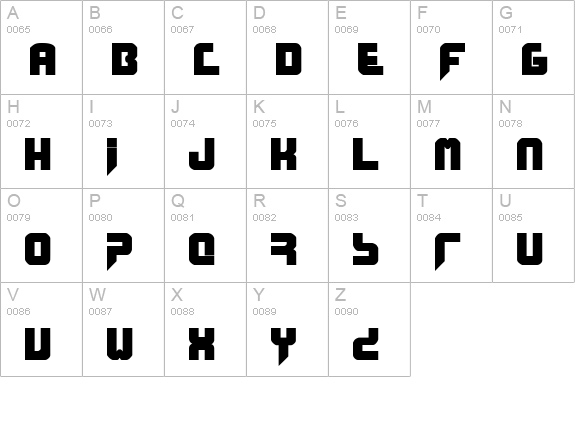
Phobos Font Details
Introducing Phobos font, a captivating typeface that exudes a sense of mystery and elegance. With its unique and intricate letterforms, Phobos font is sure to captivate the attention of any reader. This font's mesmerizing curves and sharp edges create a harmonious balance, making it ideal for a wide range of design projects. What sets Phobos font apart is not only its stunning aesthetics but also its versatility. Whether you're designing a logo, creating a poster, or crafting a captivating headline, this font will effortlessly elevate your designs to new heights. With its bold presence and sophisticated style, Phobos font demands attention and leaves a lasting impression. But what truly sets Phobos font apart is its availability. Unlike many other premium fonts on the market, Phobos font is freely available to download at FontsMarket.com. This means that you can access this exceptional typeface without any cost, making it a valuable asset for designers, students, and enthusiasts alike. So why wait? Unleash your creativity and enhance your designs with Phobos font. Download it today at FontsMarket.com and experience the power of this remarkable typeface. With Phobos font, the possibilities are endless, and your designs are bound to stand out from the crowd.